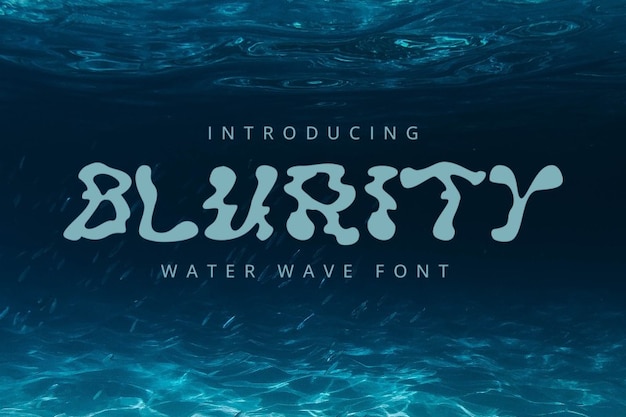
Blurity
Blurity Font
Blurity is a fluid, dynamic font inspired by the movement of water and waves. Its soft, blurred edges create a sense of fluidity and motion, evoking the feeling of liquid in constant flow. Perfect for designs related to water, the ocean, or abstract themes, Blurity adds a dreamy, flowing effect that brings both elegance and energy to any creative project.
Blurity Regular (400)